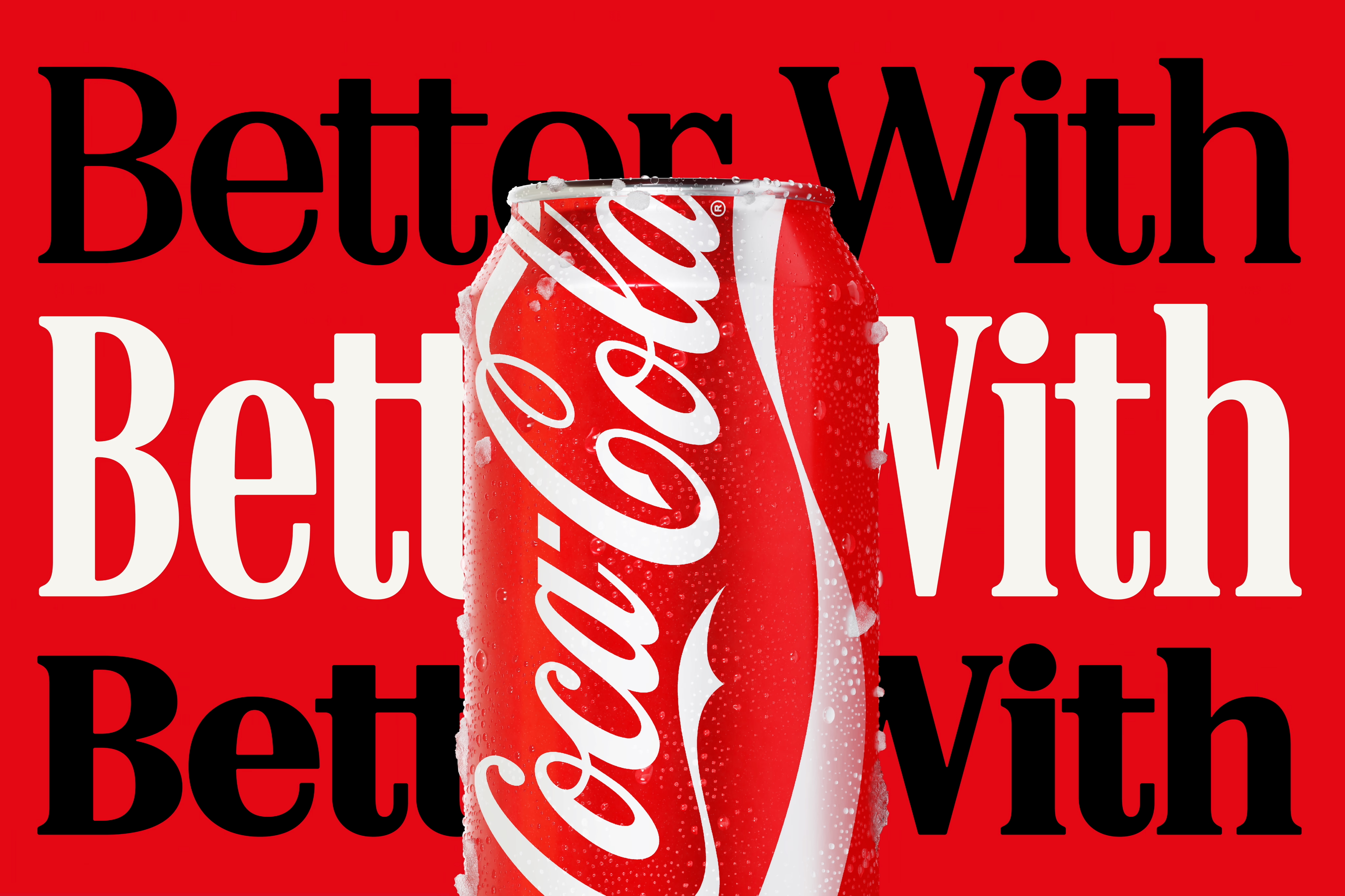
Everyone's saying the same thing about the new Coca-Cola font
"The most self-aware thing a sugar company has ever done."
Yesterday we brought you the news that Coca-Cola has launched a new brand identity; a complete design overhaul by JKR with a strong focus on typography. This includes much more prominent use of the 'Better With' typeface created for the brand by Brody Associates in 2023. Originally created for a holiday campaign, the font is now featured at the heart of the brand's marketing and packaging.
But fans have quickly spotted an unexpected similarity. The somewhat retro serif font is being compared with the typeface for Marlboro cigarettes. It isn't the same font, but the similarity is undeniable – and plenty of social media users have pointed out the irony of a sugary drink brand seeming to take design cues from one of the most famously addictive products in the world.
"We were asked to craft a new serif font family to express the brand's unique personality, movement, and playfulness," Brody associates says of Better With. "Inspired by the company’s archive, we blended Coca-Cola’s rich serif font heritage with modern-day requirements, adding another layer of storytelling to the brand through typography."
"Love that they just leaned into the fact that soda is the new cigarettes by just straight up doing the Marlboro font," one X user comments.
Granted, the fact that both brands rely on strong reds and whites in their branding probably isn't helping matters. But it's a rather awkward resemblance for Coca-Cola, especially given the recent context of countries such as the UK introducing a so-called 'sugar tax' to sugary drinks. While there'll never be a moment when Coca-Cola will want to be associated with cigarettes, the timing here is particularly unfortunate.
Or perhaps Coca-Cola simply saw the recent viral meme calling Diet Coke a "fridge cigarette" and decided to run with it.